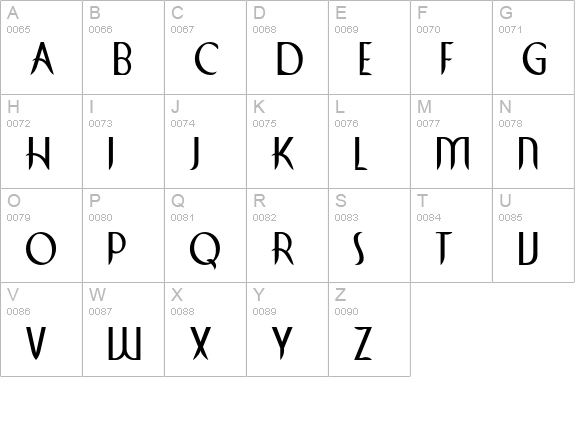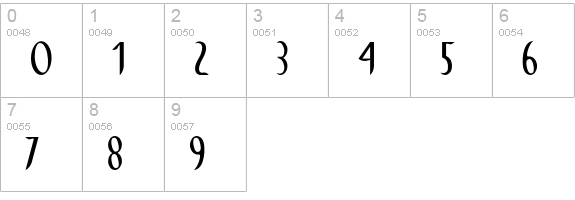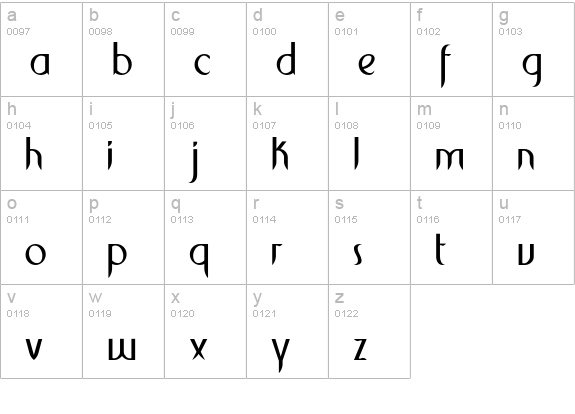
Cirrus Font Details
Cirrus is a captivating and elegant font that exudes sophistication and modernity. With its sleek lines and graceful curves, this typeface is perfect for a wide range of design projects, from branding to editorial design. Whether you're looking to add a touch of class to your website or create eye-catching marketing materials, Cirrus is sure to make a lasting impression. The best part? Cirrus is available for free download at FontsMarket.com. This means you can effortlessly enhance your projects with this stunning font without breaking the bank. Don't miss out on the opportunity to elevate your designs with Cirrus - download it today and let your creativity soar to new heights!